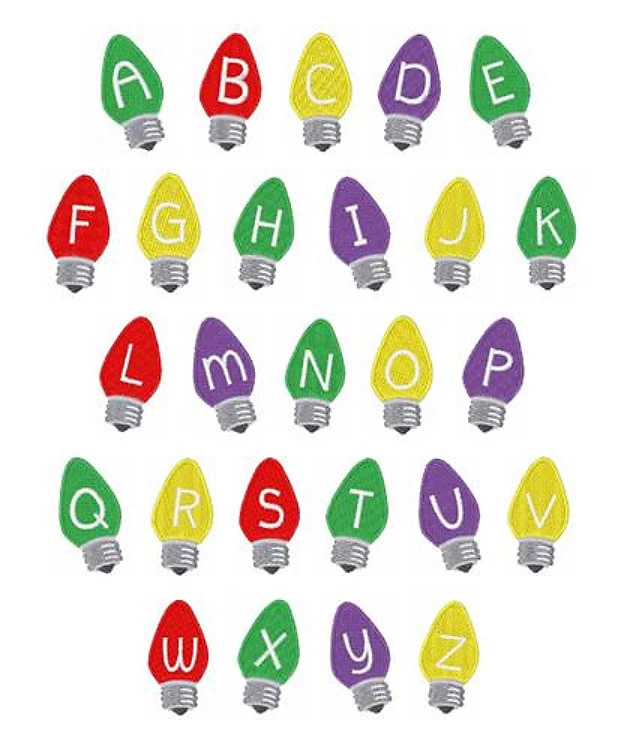
Concord Collections is happy to present Christmas Light Font machine embroidery font which has Playful embroidery font that mimics Christmas light bulbs in bright colors, perfect for holiday-themed projects on stockings, ornaments, and banners. Available in PES, DST, and 11 other formats. included. If you would like to view more embroidery fonts and alphabets please search our embroidery fonts page.
4 heights: 1.25″, 1.5″, 1.75″, 2″.